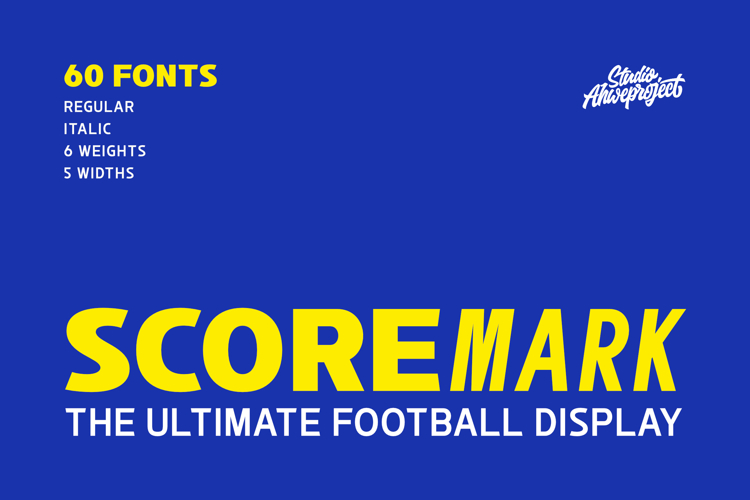
Scoremark
Scoremark is a bold sports display typeface designed to bring power, speed, and competitive energy into every headline. Inspired by stadium typography, professional match graphics, and team jerseys, this font is built to dominate large-scale layouts and capture instant attention.
With a complete family of 60 styles, including:
- Regular & Italic
- 6 Weights (from Regular to Black)
- 5 Widths (from Condensed to Expanded)
Scoremark offers maximum flexibility for professional design needs. Whether you’re creating football posters, team branding, merchandise, sports thumbnails, esports graphics, or impactful marketing campaigns, this typeface delivers strong visual authority.
Its bold structure ensures excellent readability even at extreme sizes. The multiple width options allow you to control intensity — go condensed for aggressive energy or expanded for a grand stadium feel.
If you need a font that instantly communicates strength, professionalism, and competitive spirit, Scoremark is a powerful design weapon.
Scoremark isn’t just a sports font. It’s a competitive visual statement.